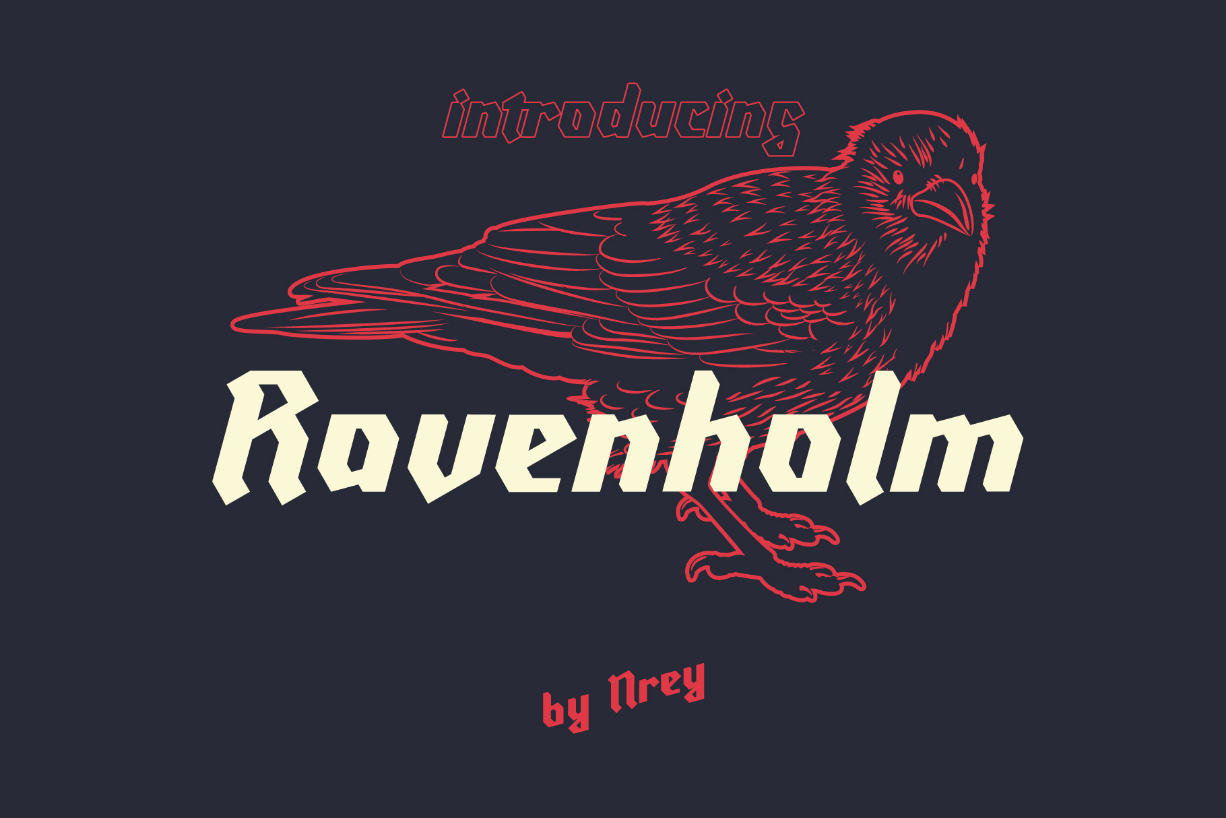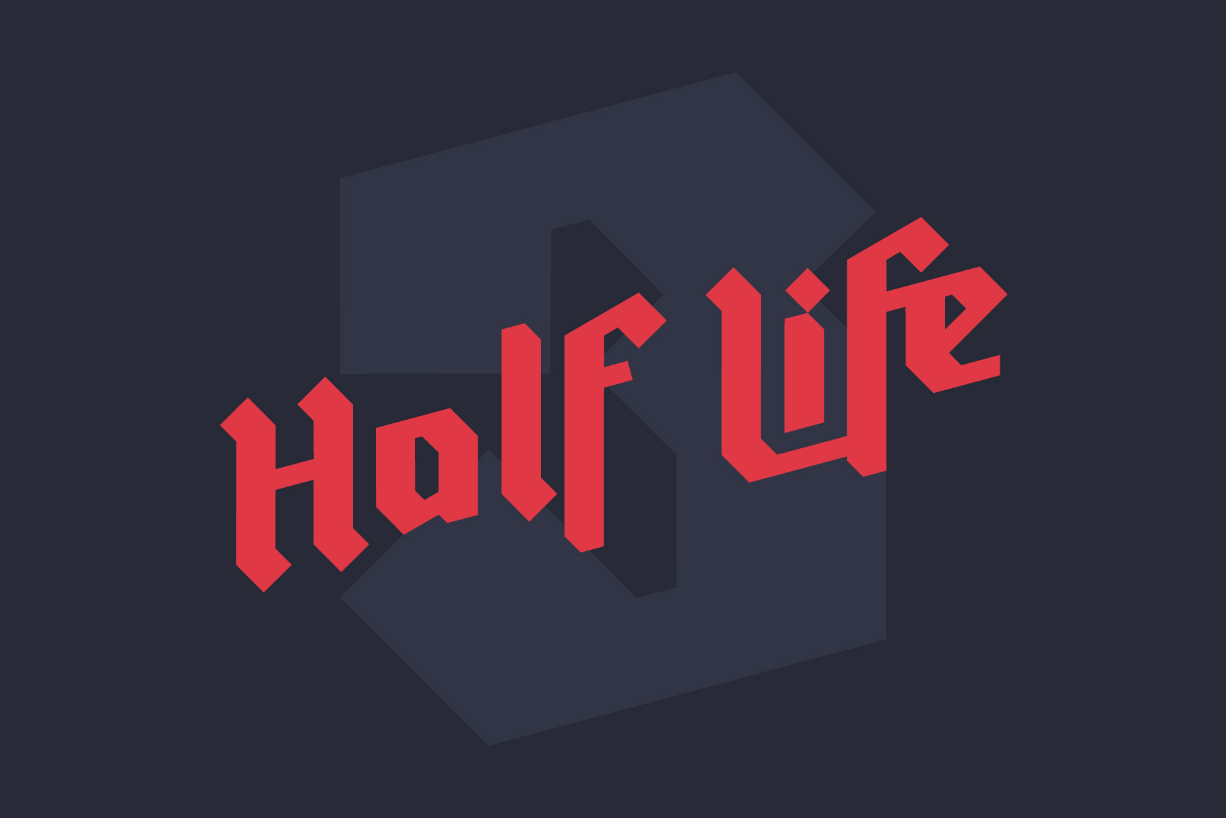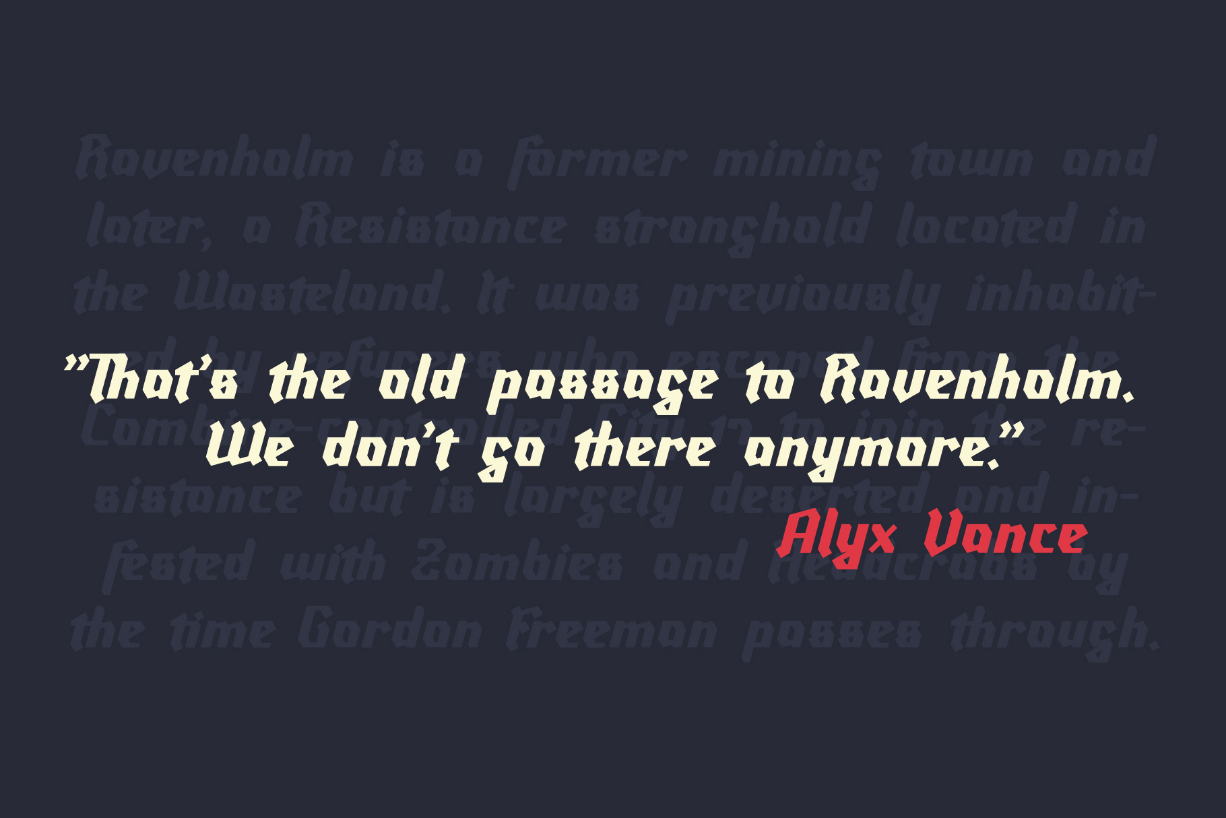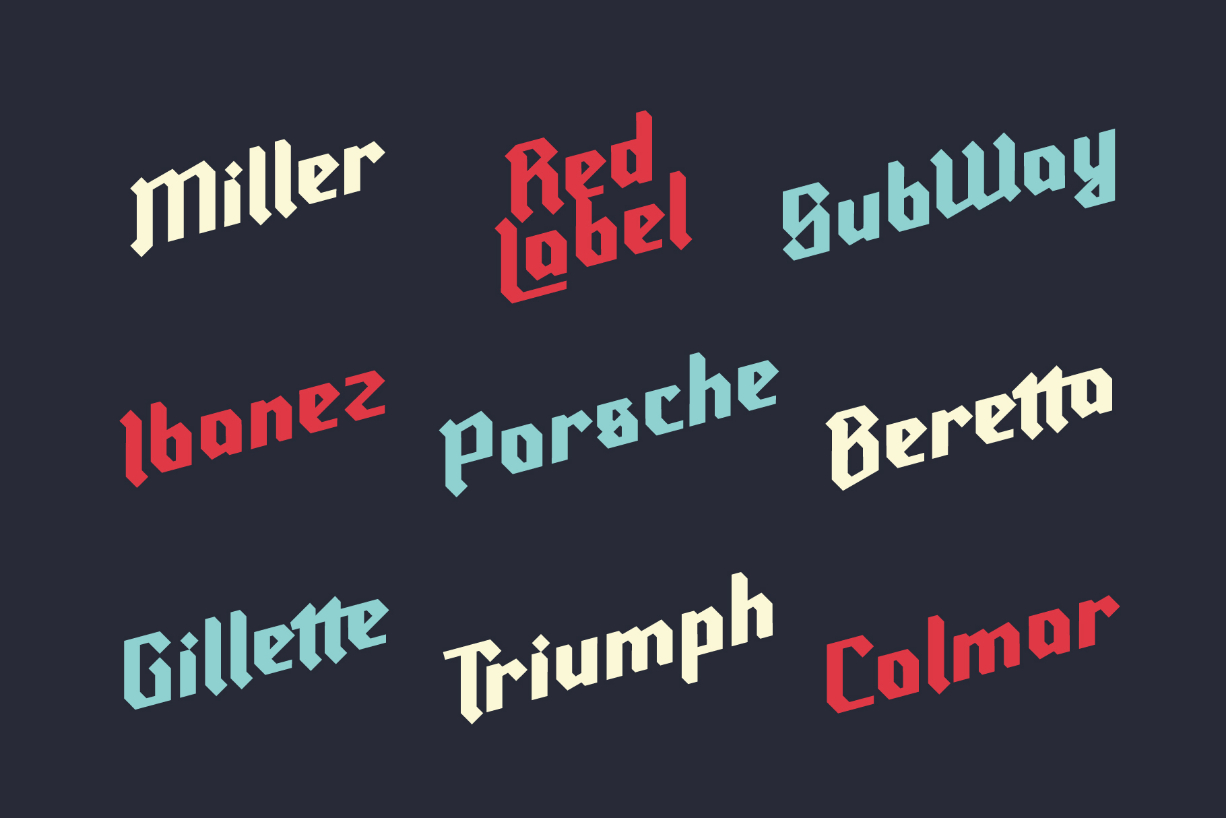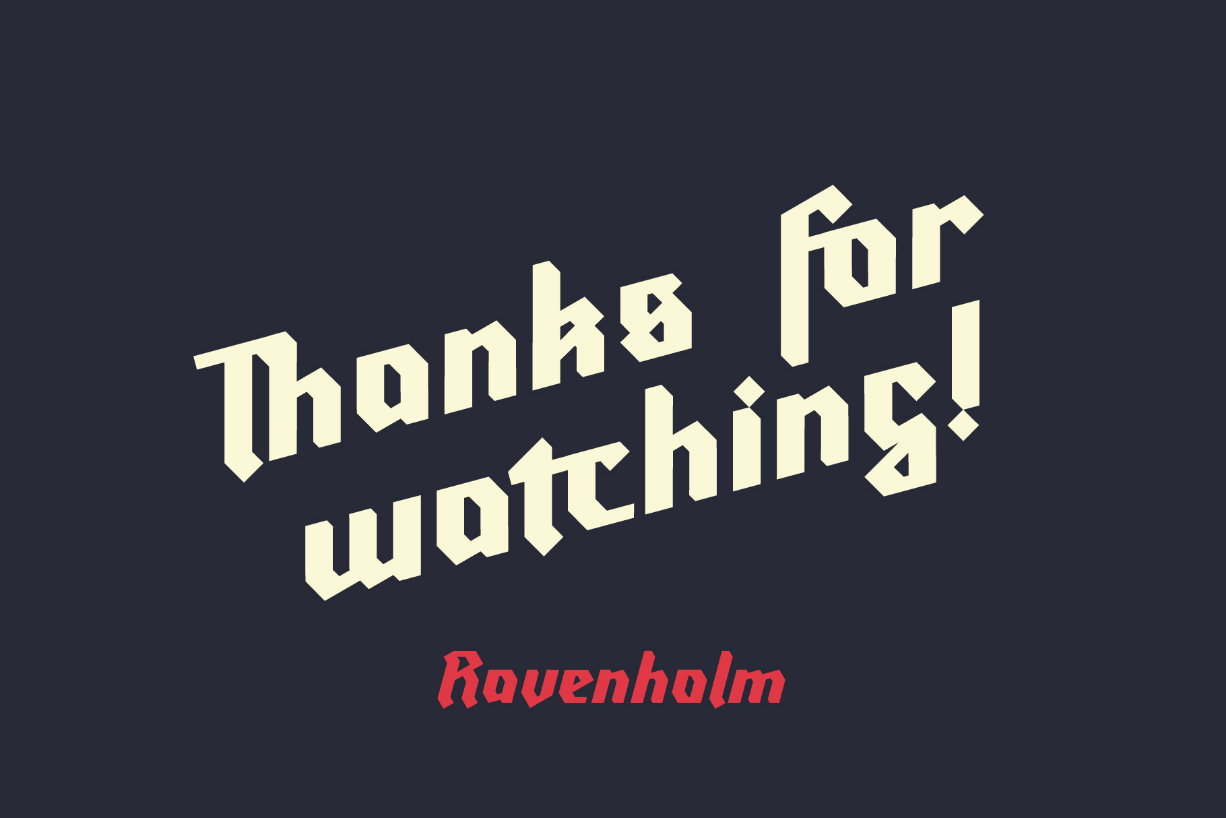
About Ravenholm Slant Font
Ravenholm is a stunning blackletter font, inspired by the Half Life game.
It’s powerful and retro, but has a surprisingly fresh breath of the Gothic culture.